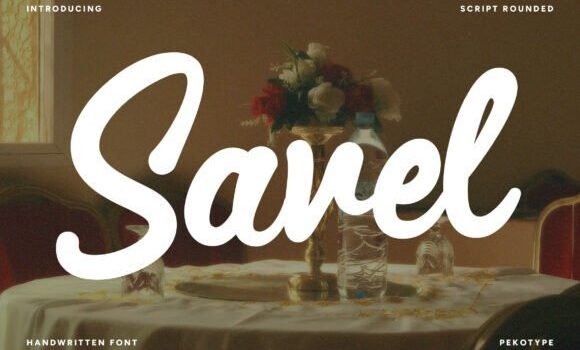
savel
Savel Font – Free Download Introduction to Savel Font Say hello to SAVEL, a bold, rounded script font that brings charm, confidence, and versatility to your designs. 📸 Preview Gallery 6 images 📌 Product Name Savel Font 👤 Author pekotype